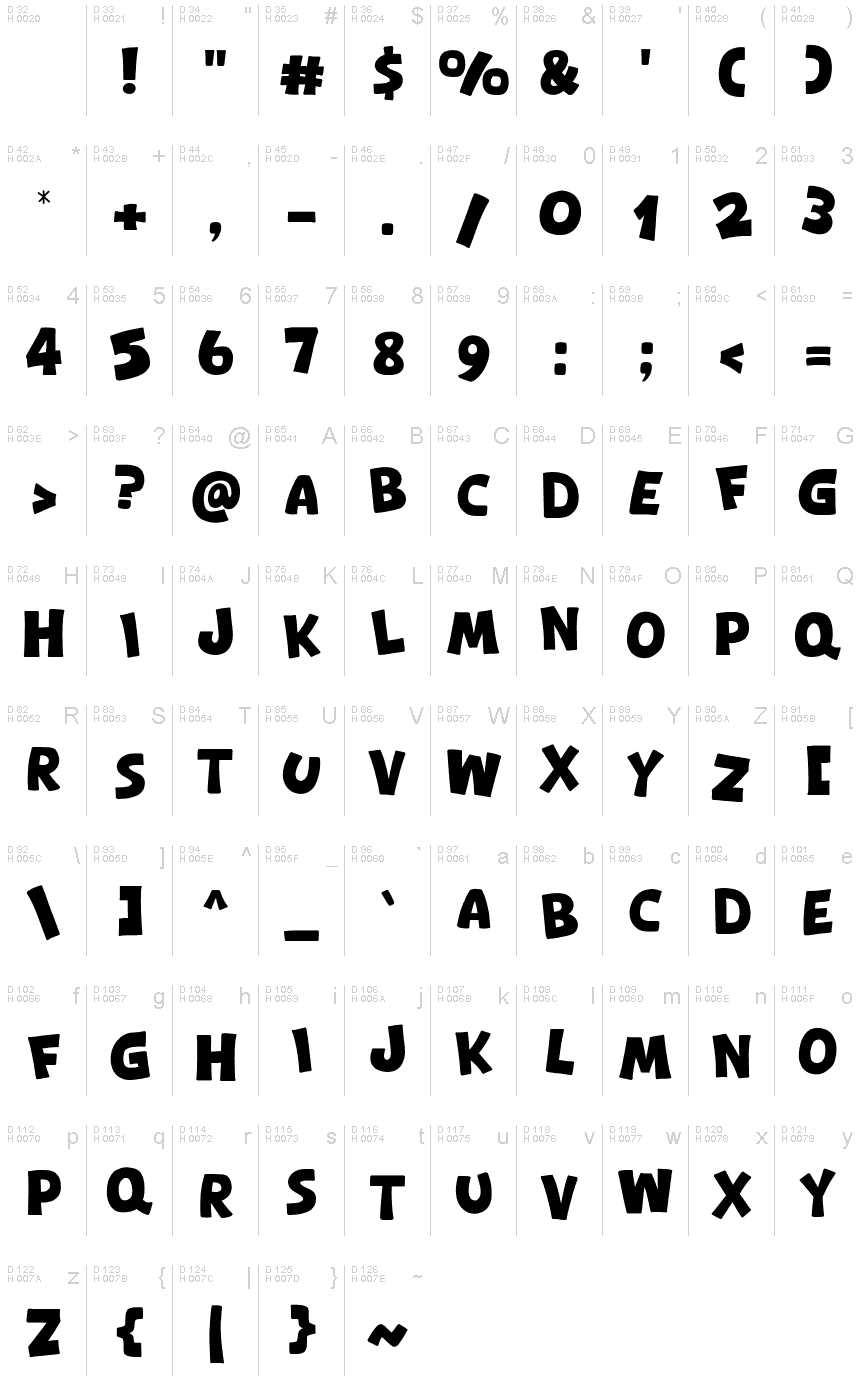
Cracker Winter
Cracker Winter, crafted by Khurasan, stands out with its bold and whimsical charm. As a display font with cartoon style attributes, it commands attention and sets a playful tone for any visual composition. The semi-expanded width of the letterforms adds a subtle spaciousness that enhances readability while maintaining an engaging presence.
Visually, Cracker Winter's aesthetic is delightfully robust—its bold weight ensures that it will make a solid impression in both digital and print mediums. The rounded edges suggest a friendly and approachable vibe, making it particularly suitable for informal or creative projects that aim to evoke warmth and fun.
From eye-catching headlines to vibrant logos, Cracker Winter is versatile enough to bring personality to children's books, party invitations, product packaging or any project aspiring to convey joy and lightheartedness through typography. Its unique blend of casual allure paired with strong visual impact makes it an excellent choice for designers looking to infuse their work with spirited character and style.